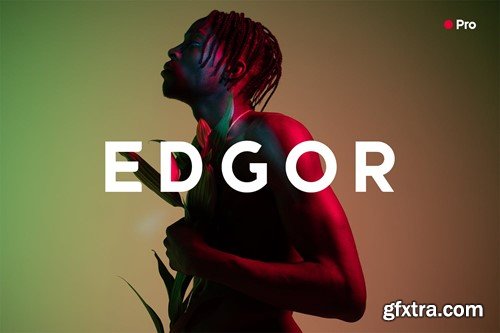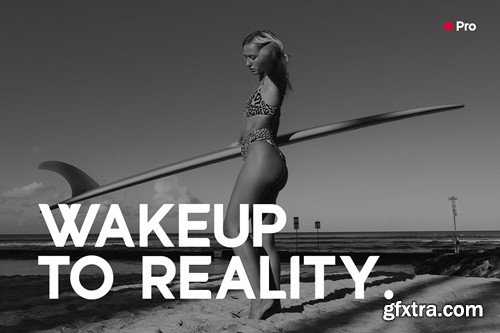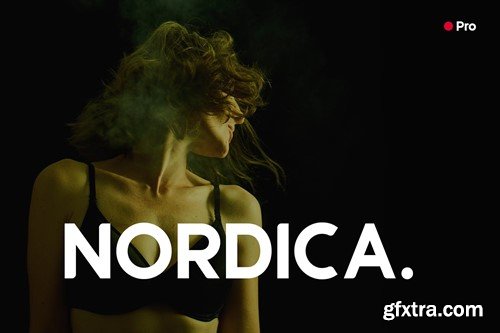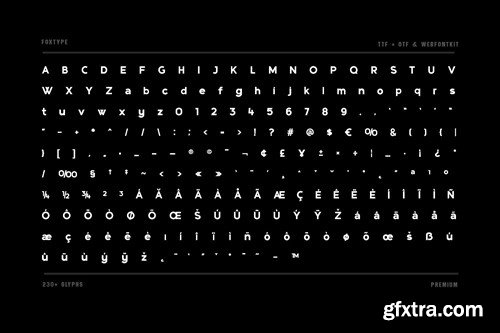
Edgor Display Typeface
Introducing Edgor Display new generation Typeface created for building brand identity. Edgor Typeface created with the vision of to attract the audience to your brand. The finest details of this typeface are methodically and mathematically created. Edgor is created with all the tasks of a corporate font and also for the usage in a variety of projects, including branding, logos, titles, headlines, posters, screens, display, digital ads and everything else. We are putting a lot of effort on this font as a long-term project.